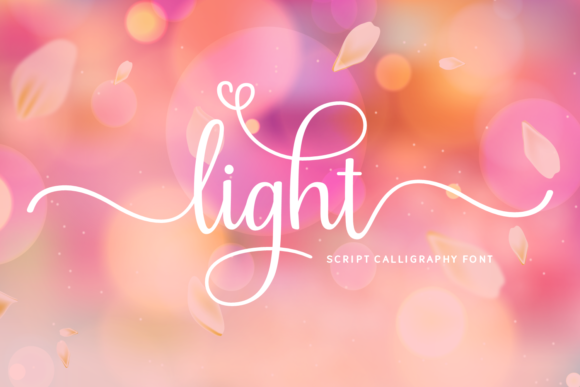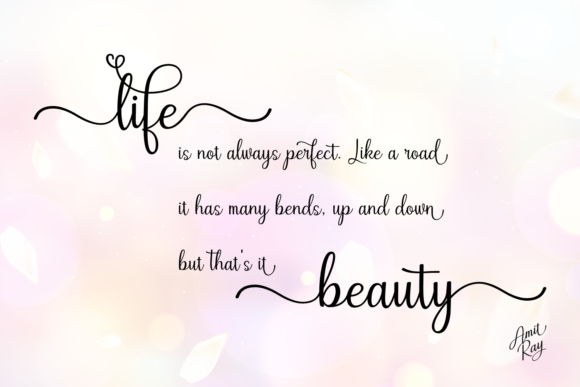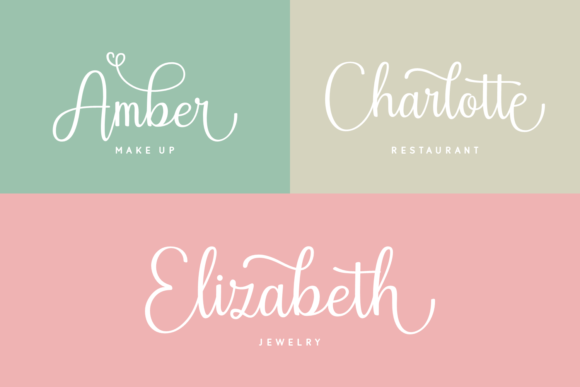
About Light Font
Light is an exquisite script font characterized by its cursive characters and splendid readability. This font is a perfect choice for products that require dainty and original typography, infused with a touch of romance. The elegant and delicate nature of Light makes it a versatile and captivating addition to various applications, elevating the overall aesthetic with its graceful script.
The cursive characters of Light contribute to its elegance, creating a sophisticated and refined appearance. This makes the font well-suited for a range of projects, from branding and invitations to posters and other design endeavors that demand a romantic and graceful touch.
In branding, Light adds a sense of delicacy and originality to your visual identity, establishing a memorable and distinctive brand persona. The font’s splendid readability ensures that your brand message is conveyed with clarity and style, leaving a lasting impression on your audience.
For invitations, Light enhances the romantic atmosphere, making it an ideal choice for weddings, events, or any occasion where an elegant and graceful script is desired. The font’s cursive style adds a personal and sophisticated touch to your invitation designs, setting the tone for a special and memorable occasion.
In posters, Light’s exquisite script stands out with its graceful and flowing characters, contributing to a visually pleasing and harmonious design. The font’s versatility allows it to adapt seamlessly to different themes, creating an impactful and aesthetically pleasing result.
The delicate and charming script of Light makes it suitable for various products that require dainty and original typography. Whether applied to packaging, labels, or other applications, this font enhances the overall look with its romantic and refined aesthetic.
In summary, Light is more than just a font; it’s an exquisite script design tool that brings a touch of romance and sophistication to your projects. Whether used in branding, invitations, posters, or various products, Light adds a distinctive and elegant element, creating a visually appealing and original typographic experience.